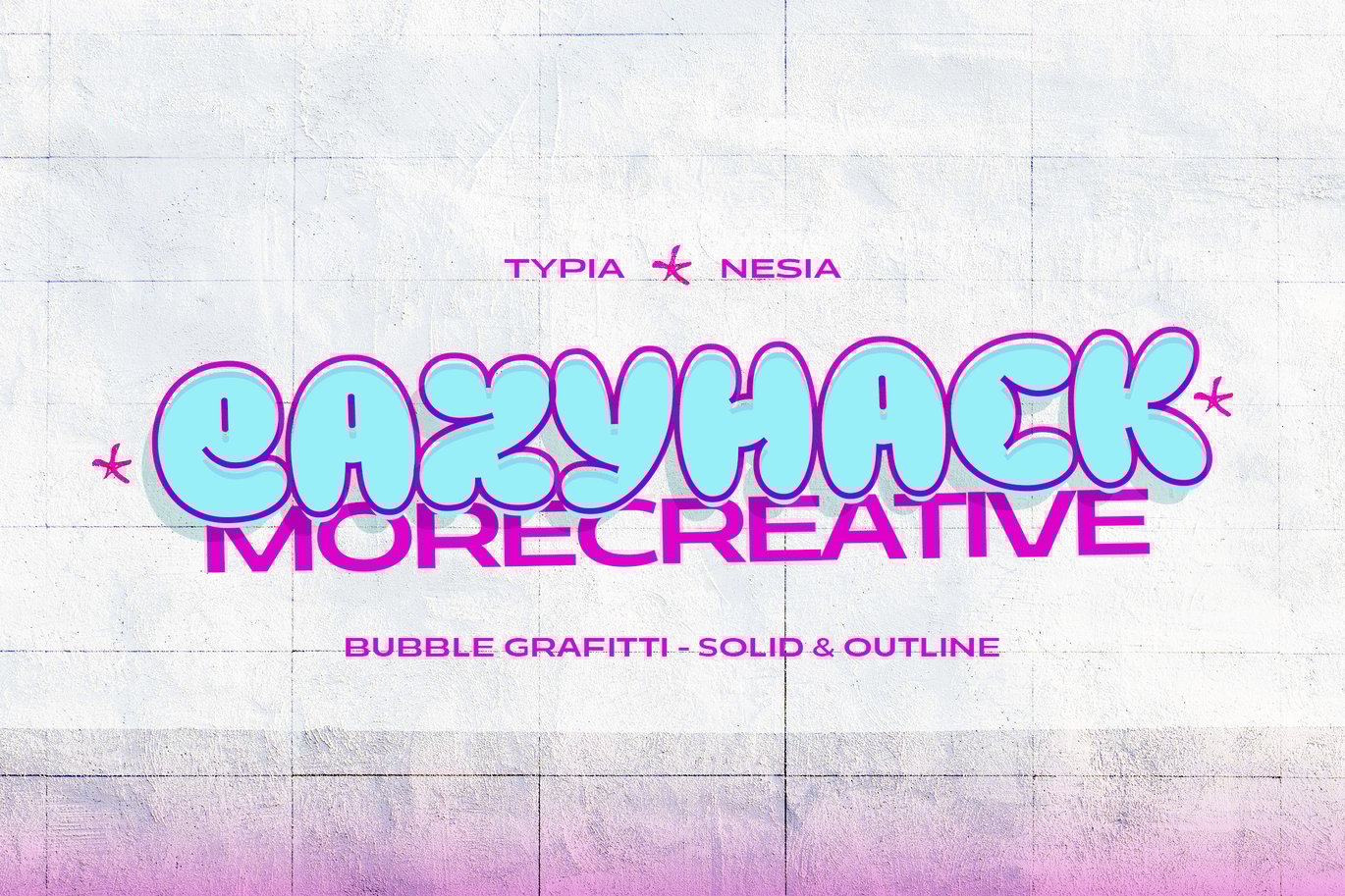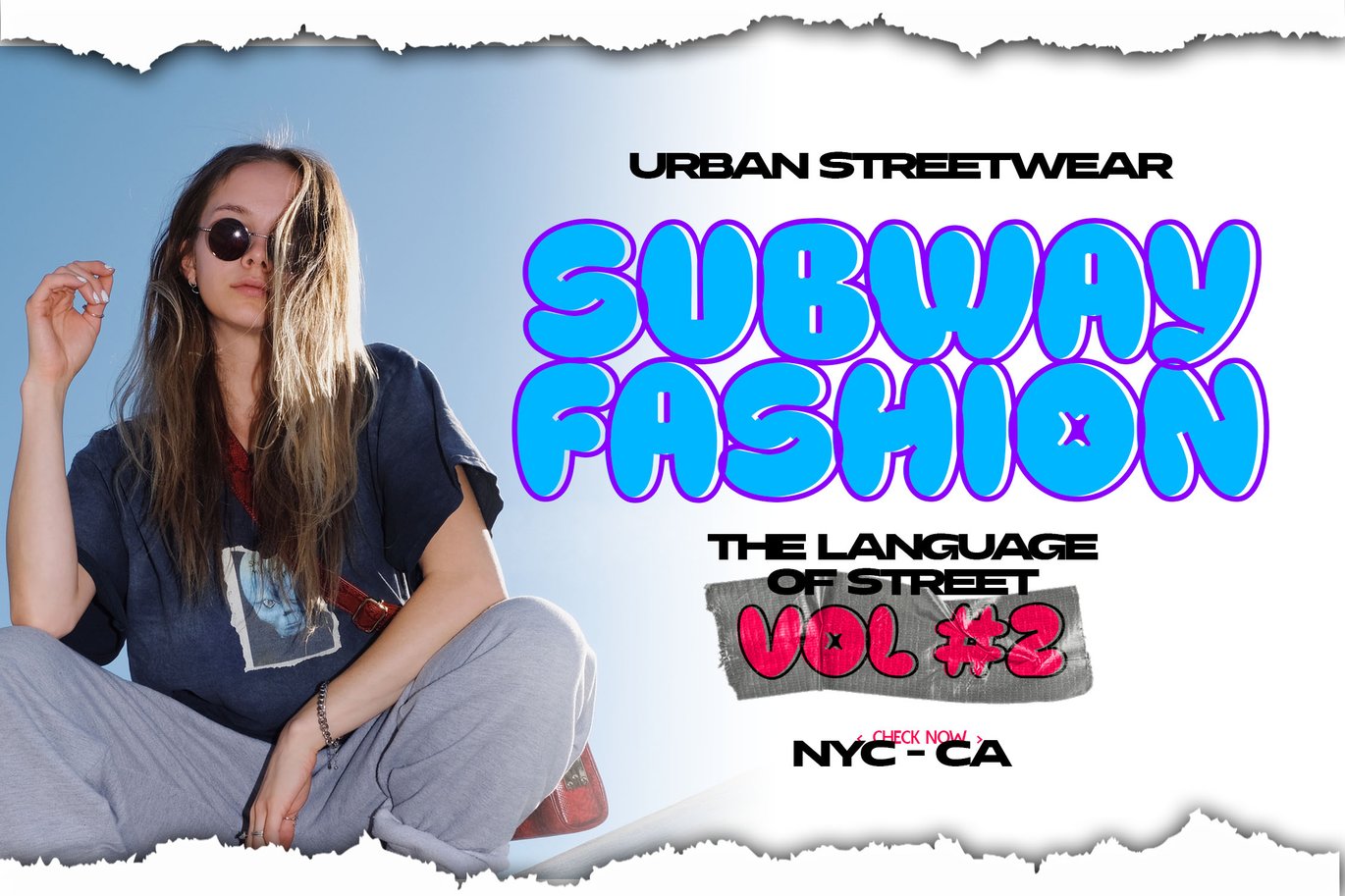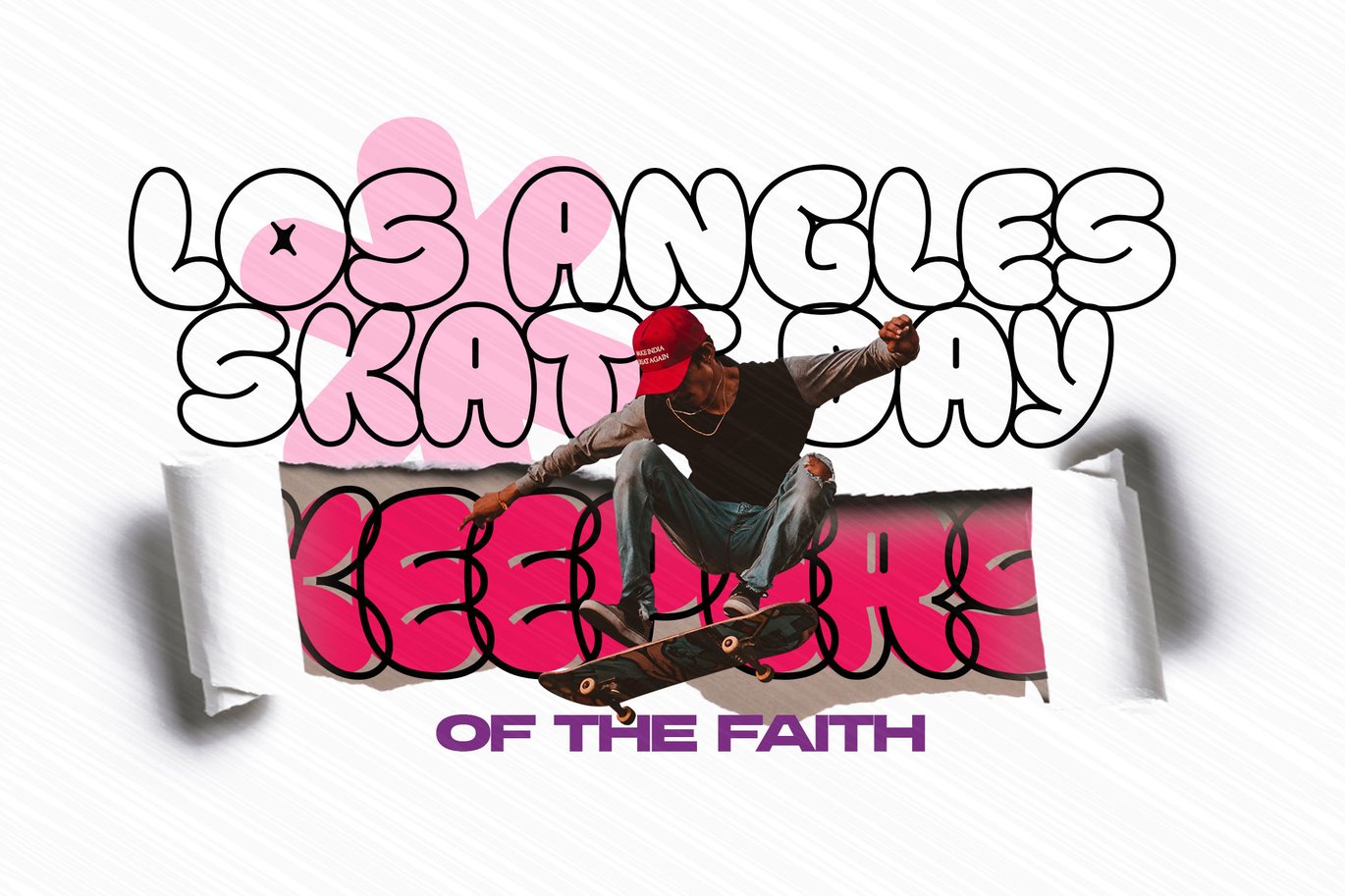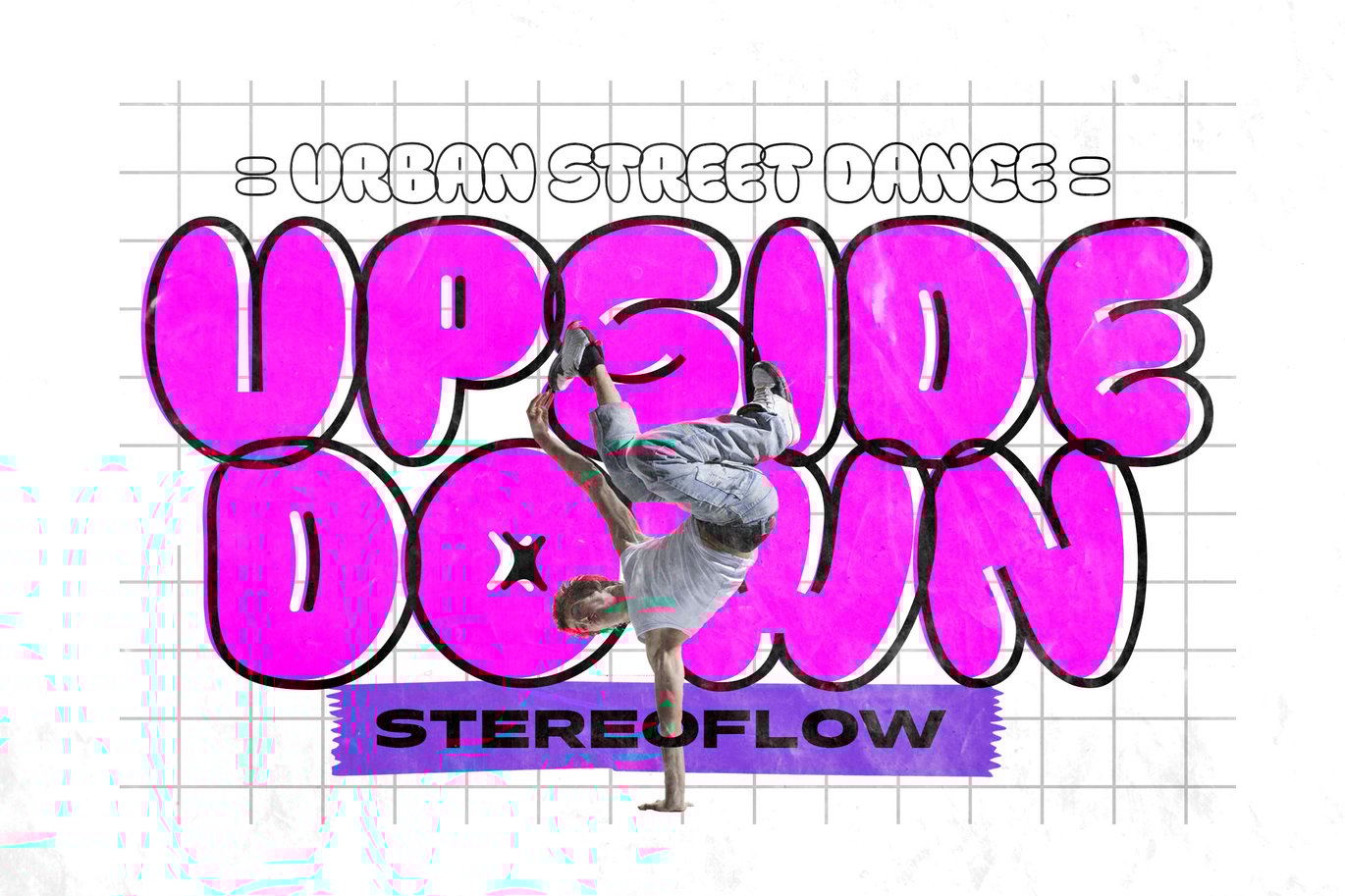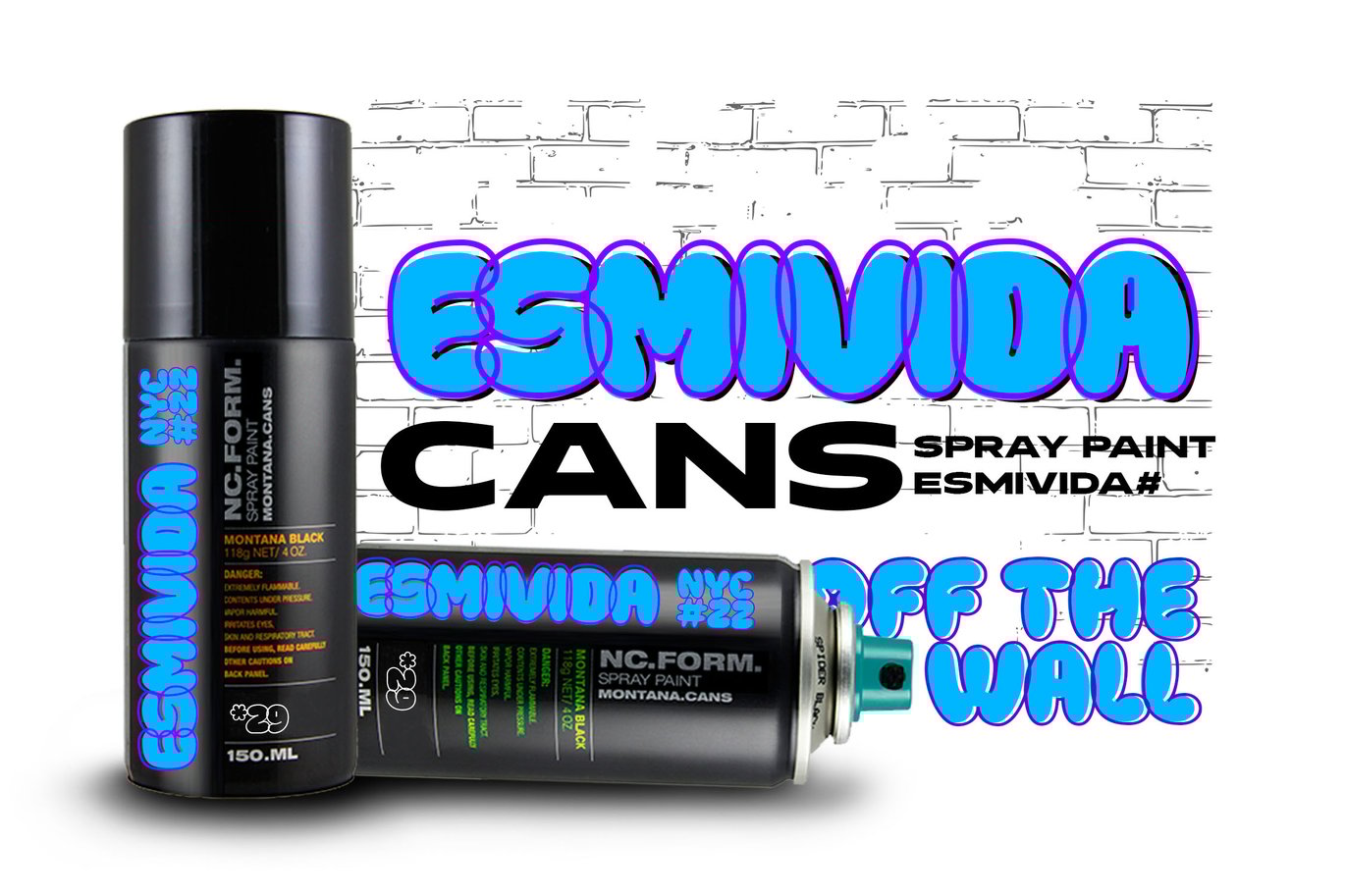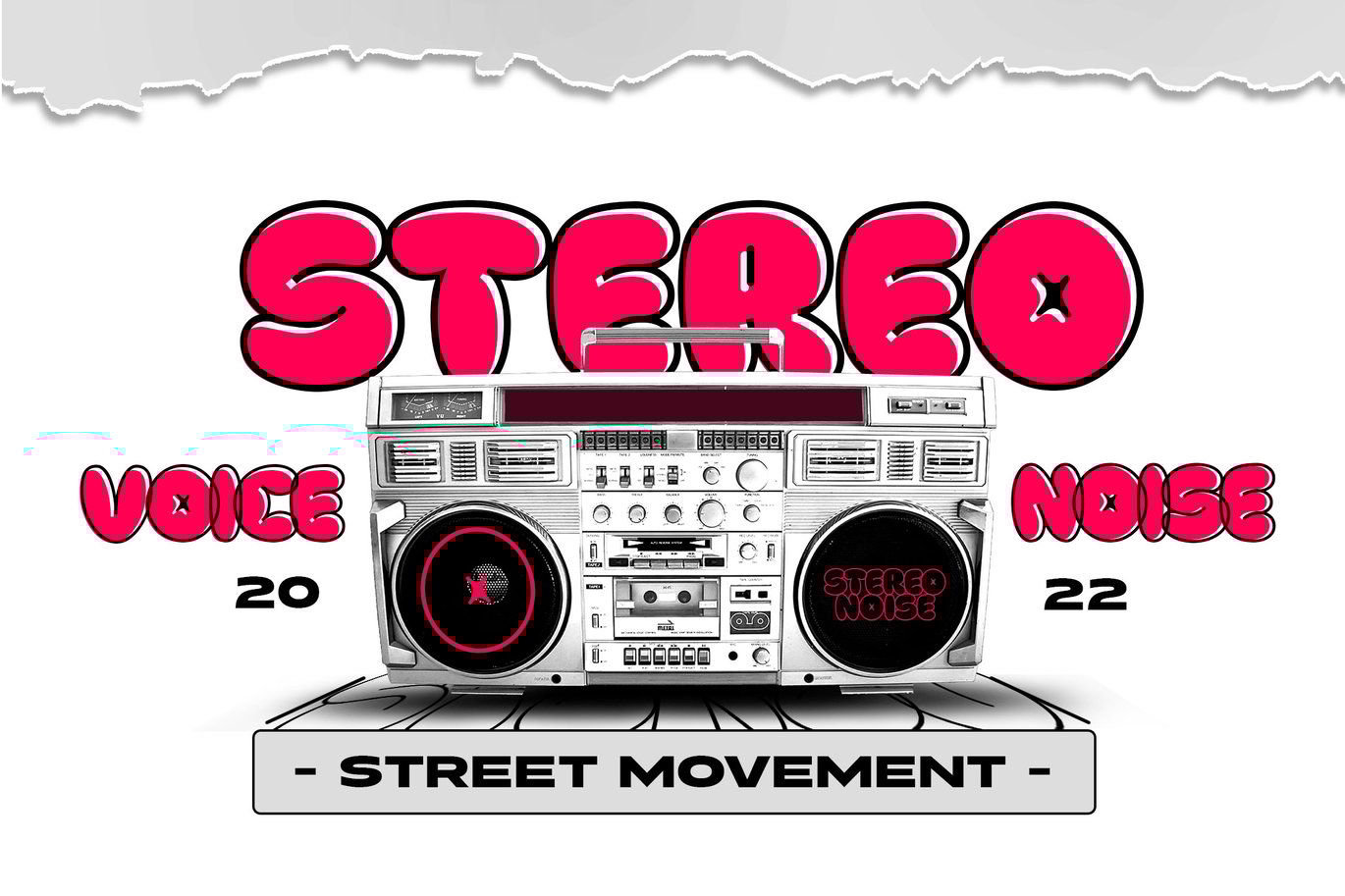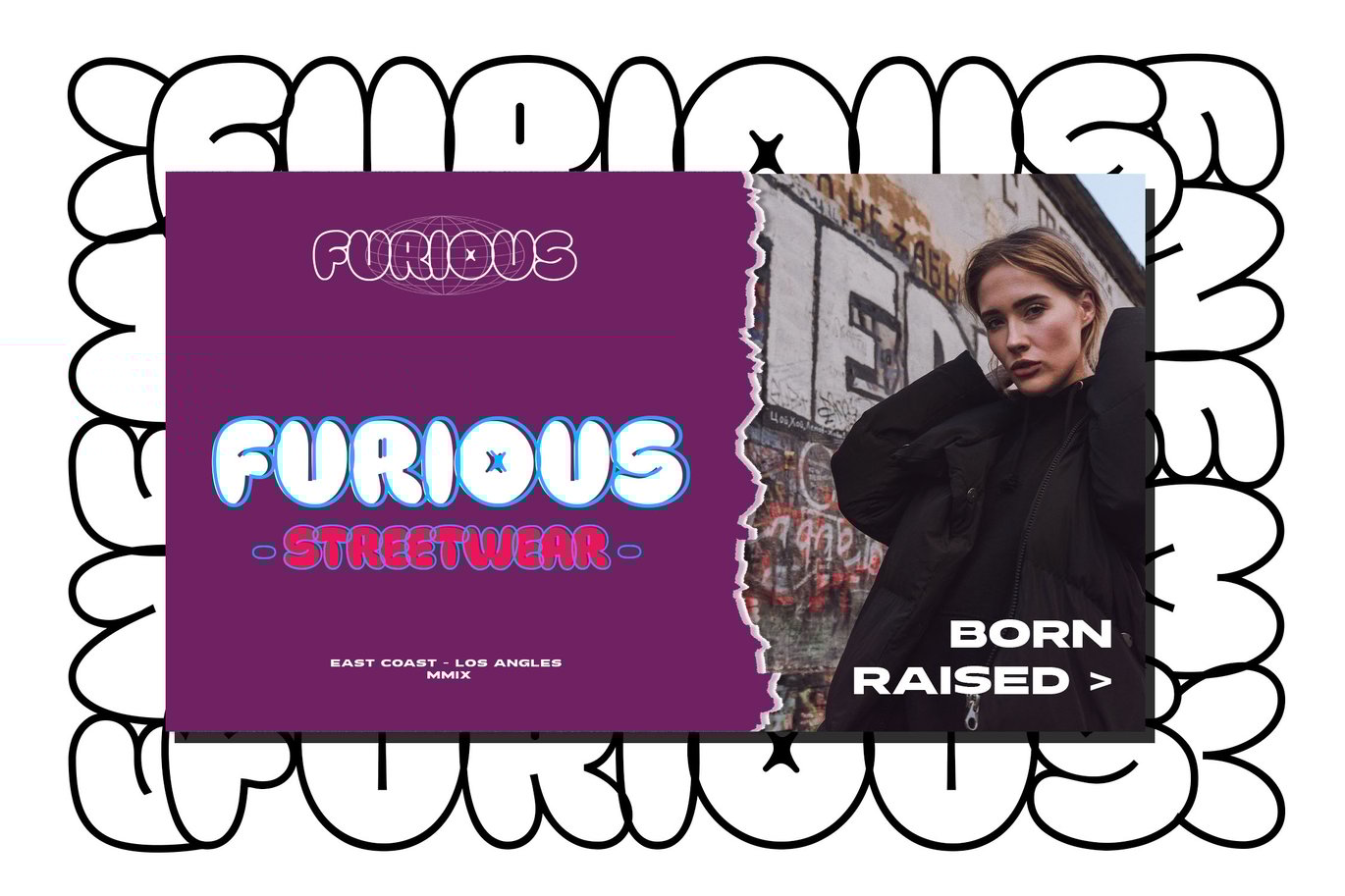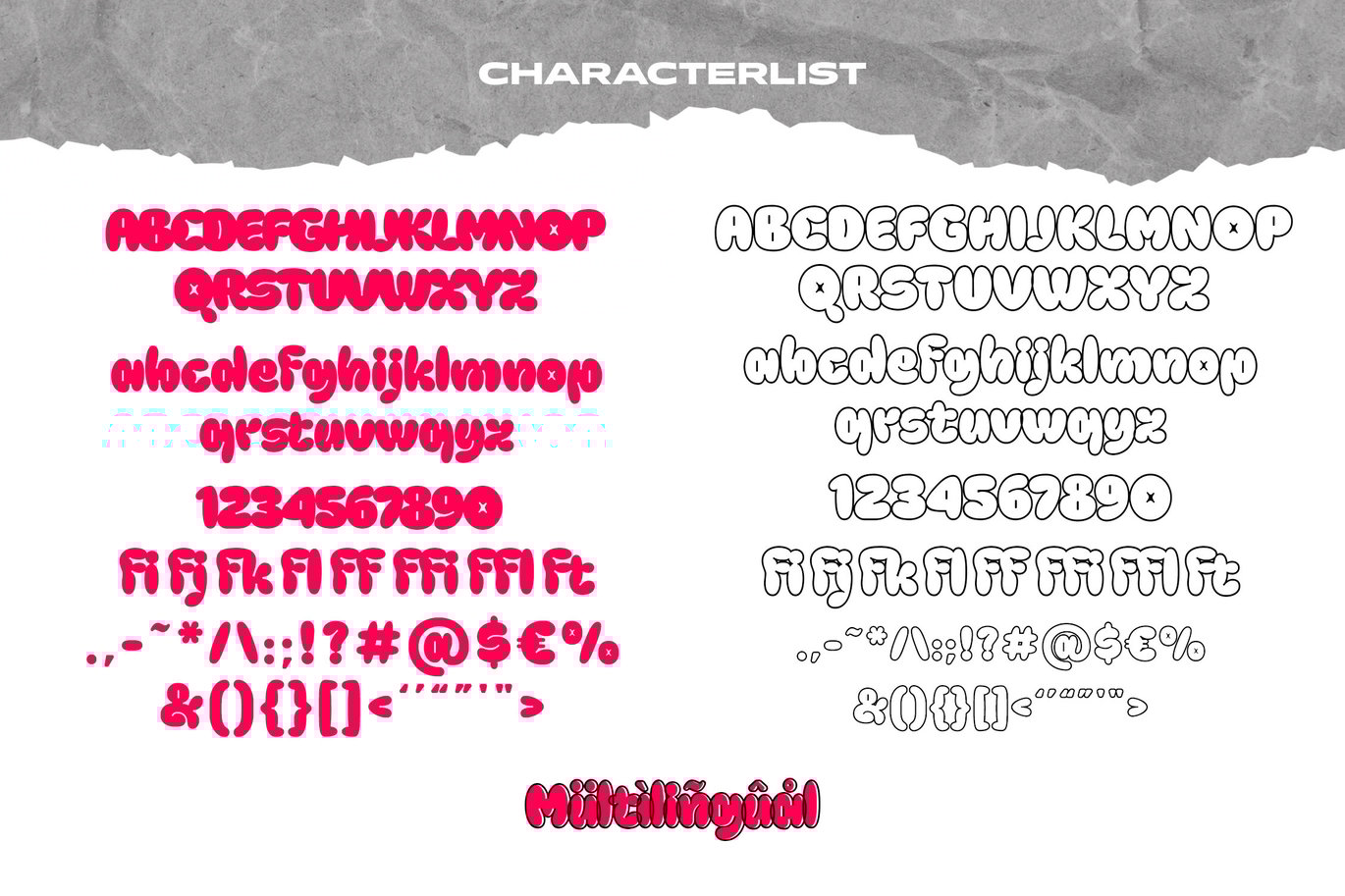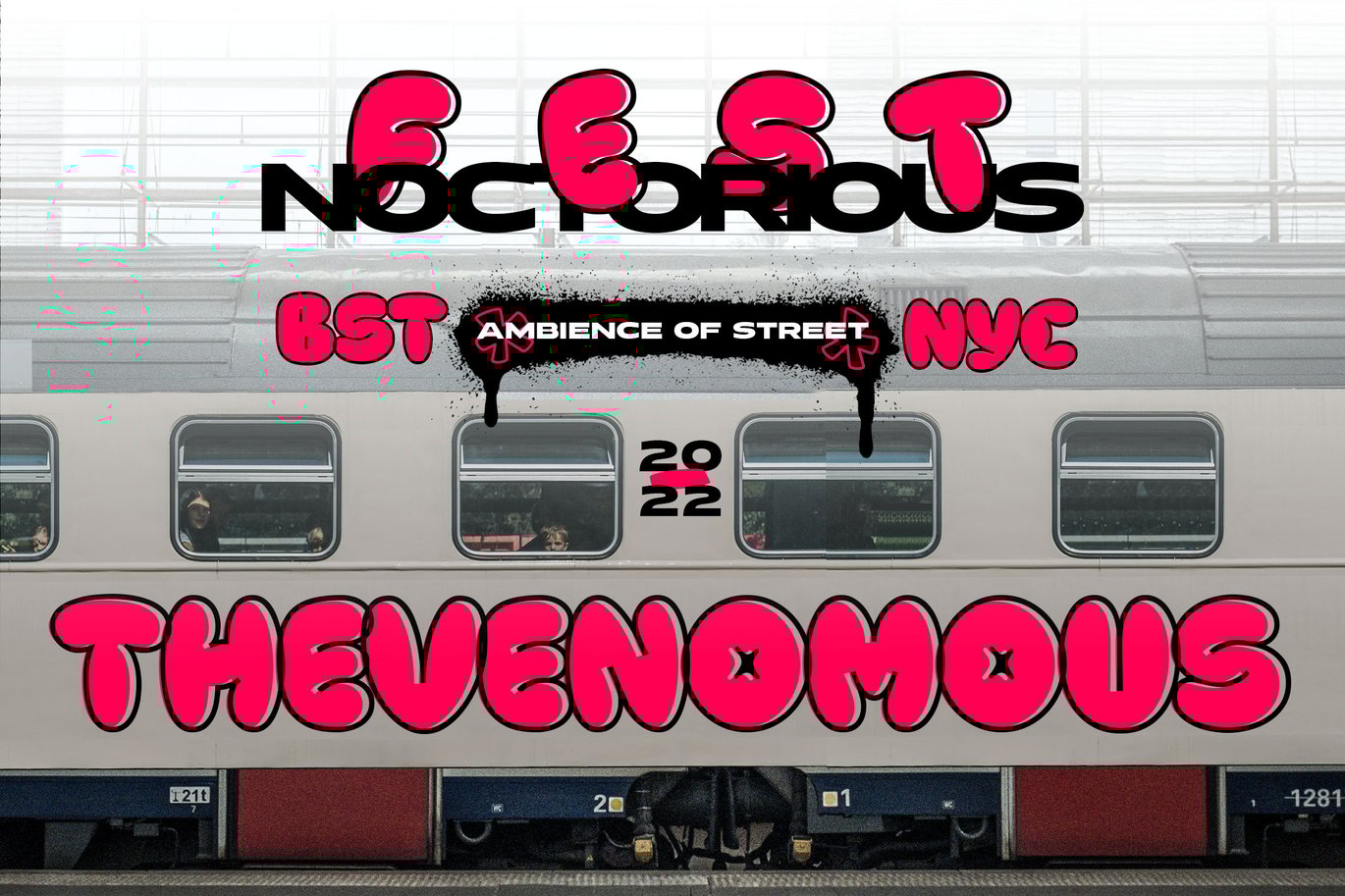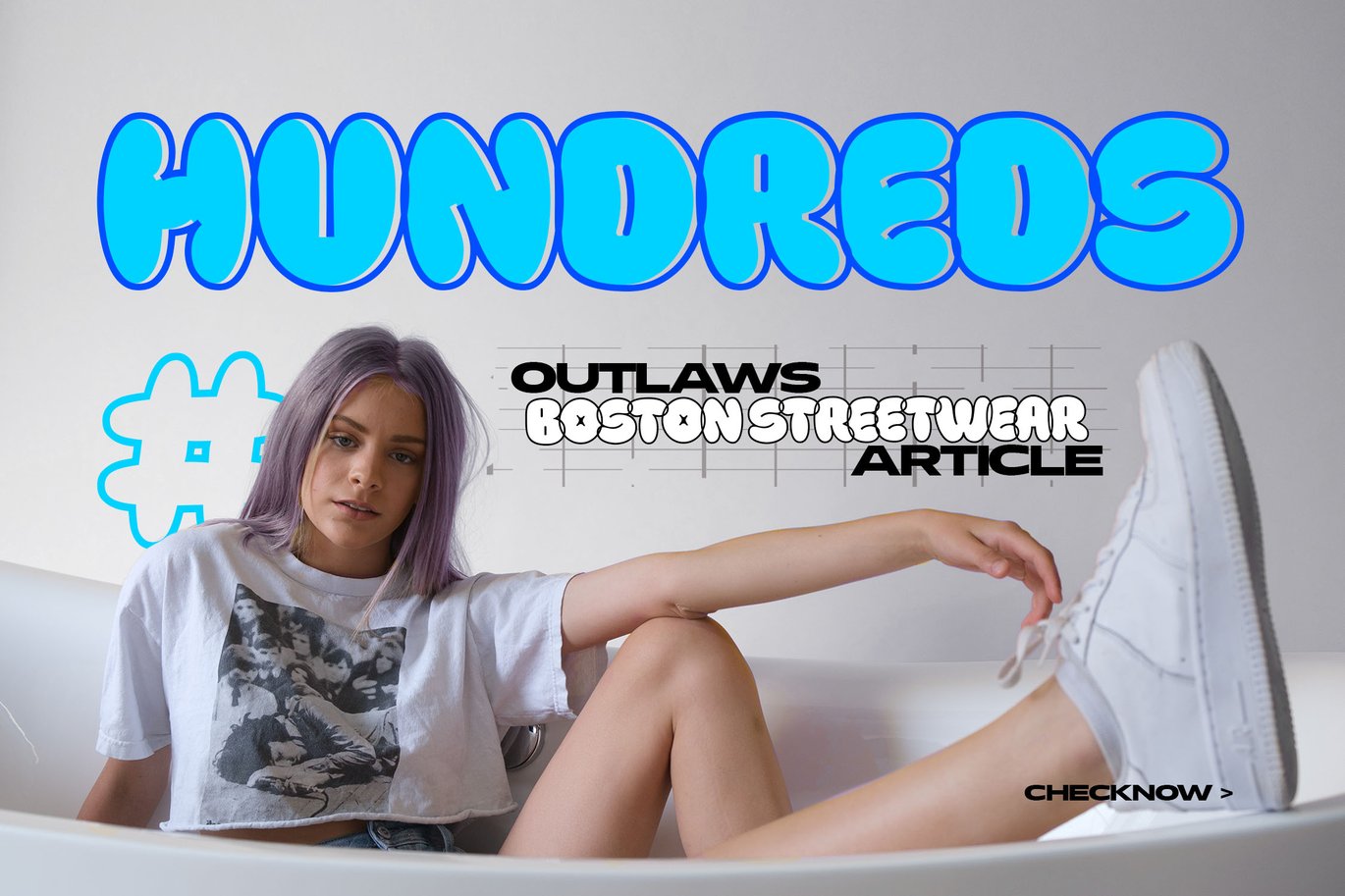
Eazyhack – Modern Bubble / Balloon Graffiti Font
Eazyhack – Modern Throw-Up Bubble / Balloon Graffiti Font – Street / Urban Culture – Kid / Fun Game
Eazyhack Font is perfect for your up coming projects. Such as logo branding, editorial design, sport design, game / gaming industry, music cover and poster, website design, modern advertising design, modern poster quote, book / magazine cover title, special events and any more.